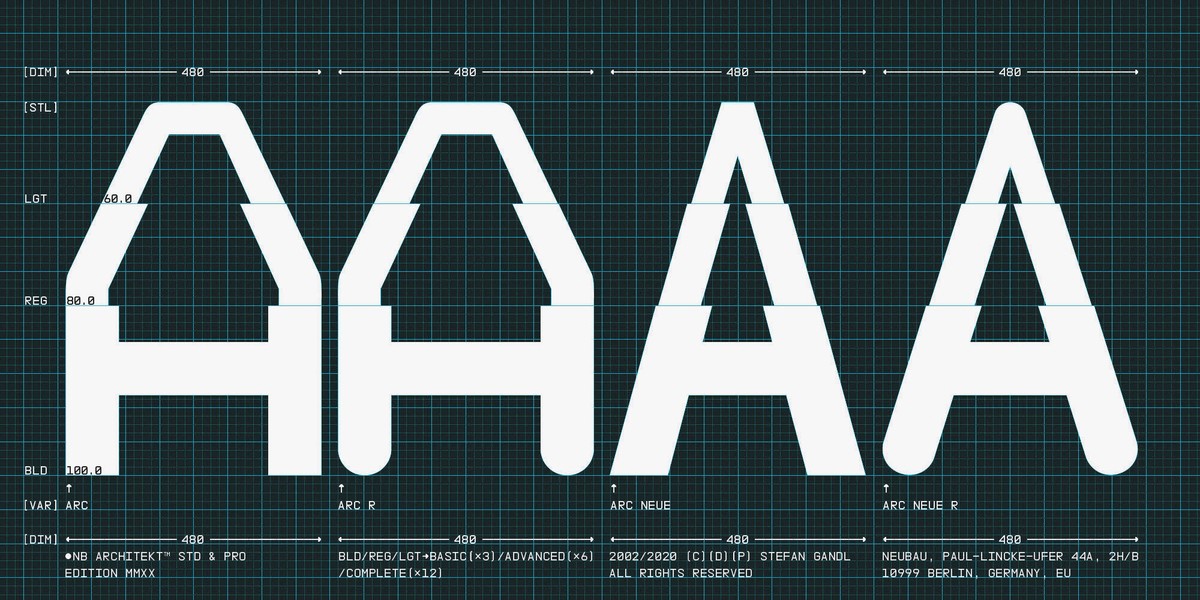
NB Architekt Font
NB Architekt Font is perfect for architectural presentations, engineering documentation, construction company branding, modern corporate identity, technical drawings, professional blueprints, urban planning materials, and contemporary design studios.
NB Architekt Font is exciting because it embodies structural precision with clean geometric letterforms and technical accuracy that reflects architectural excellence and engineering sophistication. Its professional character creates immediate associations with expertise and structural integrity that resonates with audiences seeking reliable technical solutions and architectural innovation.
NB Architekt Font family includes regular weight with technical alternates and architectural variations, providing designers with comprehensive options for creating precise typography solutions that project engineering excellence and architectural professionalism.
Professional designers consistently select NB Architekt Font for projects requiring technical precision and architectural authenticity. Its structural character works magnificently in construction environments, engineering presentations, architectural portfolios, and technical documentation where professional competence and structural reliability drive client confidence. The font's precise nature creates credible brand experiences that communicate expertise and architectural excellence.
The NB Architekt Font download package includes technical alternates, architectural variations, and engineering symbols that enhance its professional appeal and design functionality. This comprehensive collection ensures professional results in technical design projects requiring precise typography character. The font performs exceptionally across both digital and print applications where its structural details and architectural proportions create significant professional value and technical distinction.
Design teams appreciate NB Architekt Font's ability to communicate technical expertise and architectural sophistication in competitive professional markets. Its precise styling transcends decorative typography approaches while maintaining the accuracy required for engineering positioning, making it an essential tool for organizations seeking to establish technical credibility through superior architectural typography and exceptional professional communication.